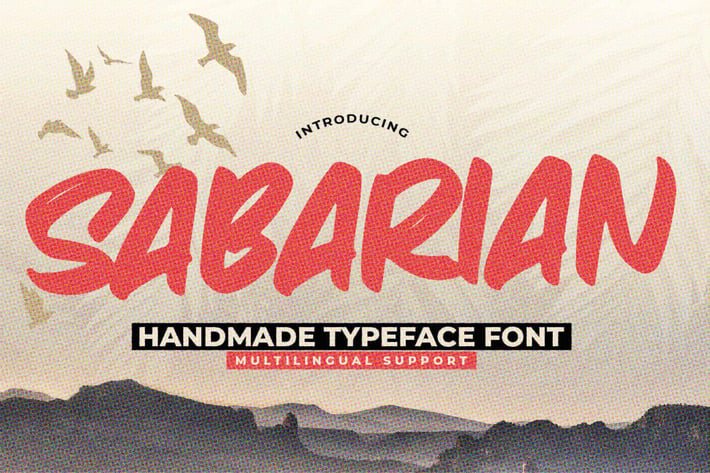
Sabarian - Handmade Typeface Font
Sabarian - Handmade Typeface Font with a natural style and dramatic movement. Crafted manually with love and passion, This font is great for your next creative project such as logos, printed quotes, invitations, cards, product packaging, headers, Logotype, Letterhead, Poster, Label, and etc.
This handmade font will make your design has a beautiful natural touch for each details. It is perfect for any design project as Invitation, book cover, craft or any design purposes.photos, photography overlays, signs, window art, scrapbooking, tags and so much more!